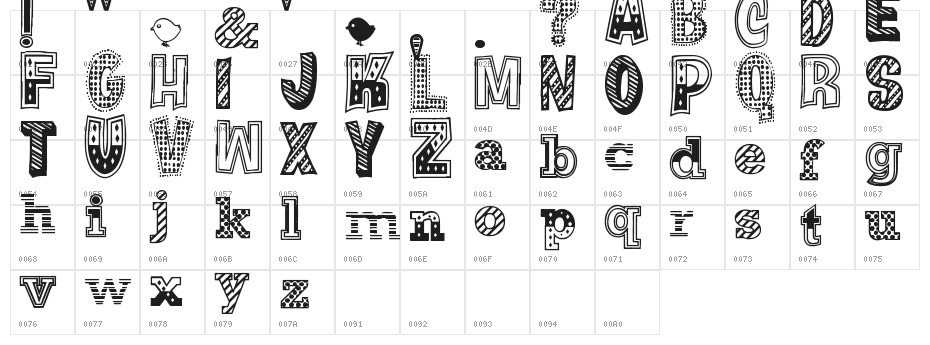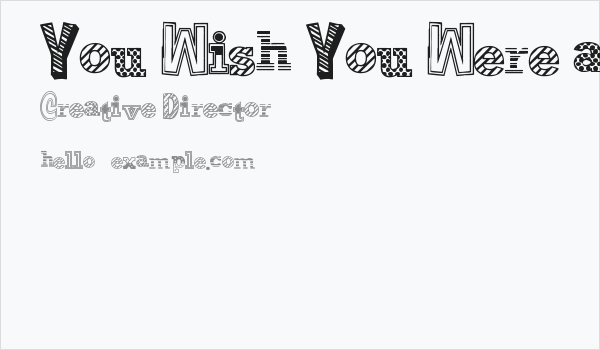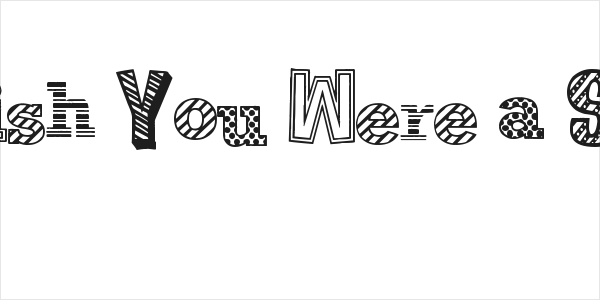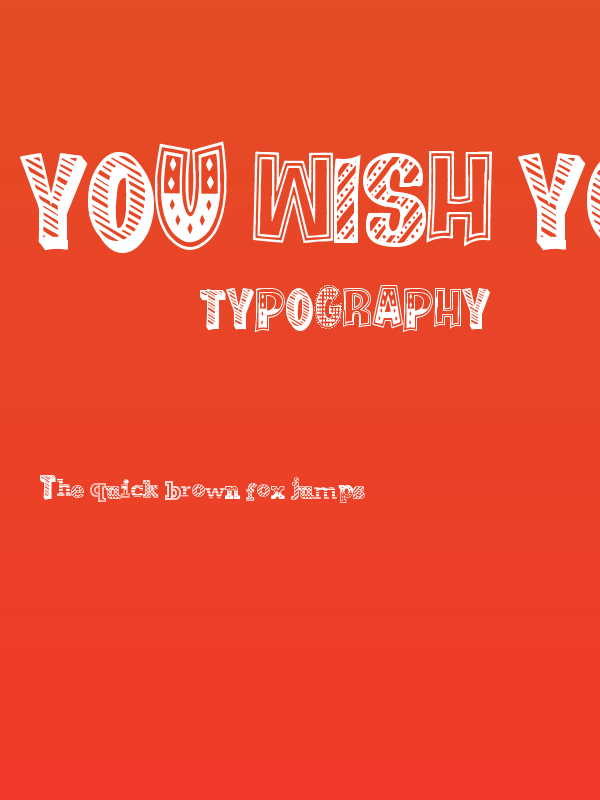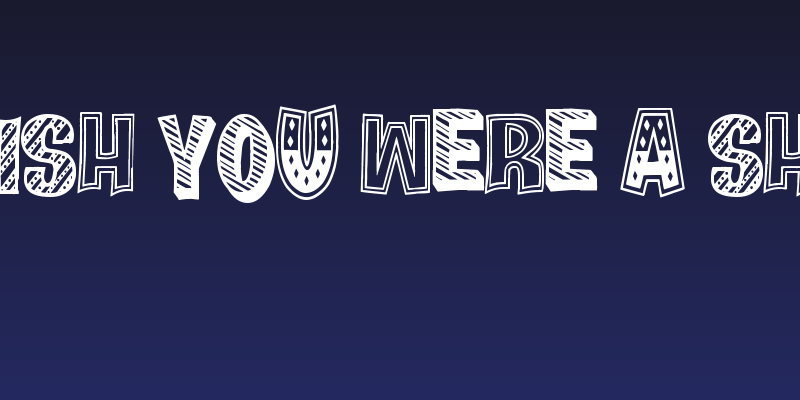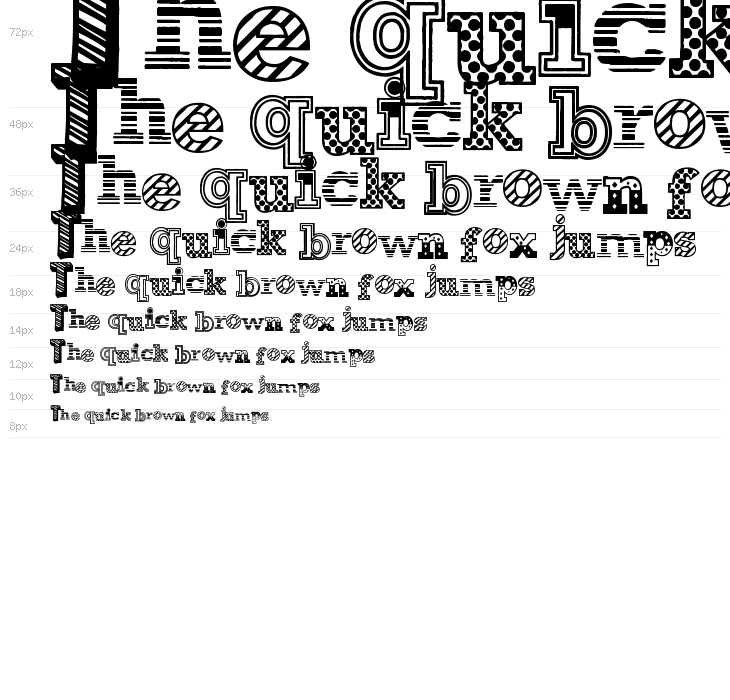
You Wish You Were a Shirley Font
You Wish You Were a Shirley Description
This font is a playful and eclectic display typeface that combines a variety of patterns and textures within each letterform. Each character is uniquely designed with elements such as stripes, dots, and geometric shapes, creating a vibrant and dynamic appearance. The uppercase and lowercase letters maintain a consistent height, while the special characters add a whimsical touch with their quirky designs. This font's bold and decorative style makes it ideal for projects that require a fun and eye-catching aesthetic.
| Proposed Projects | Ideal for children's book covers, party invitations, playful branding, and posters. |